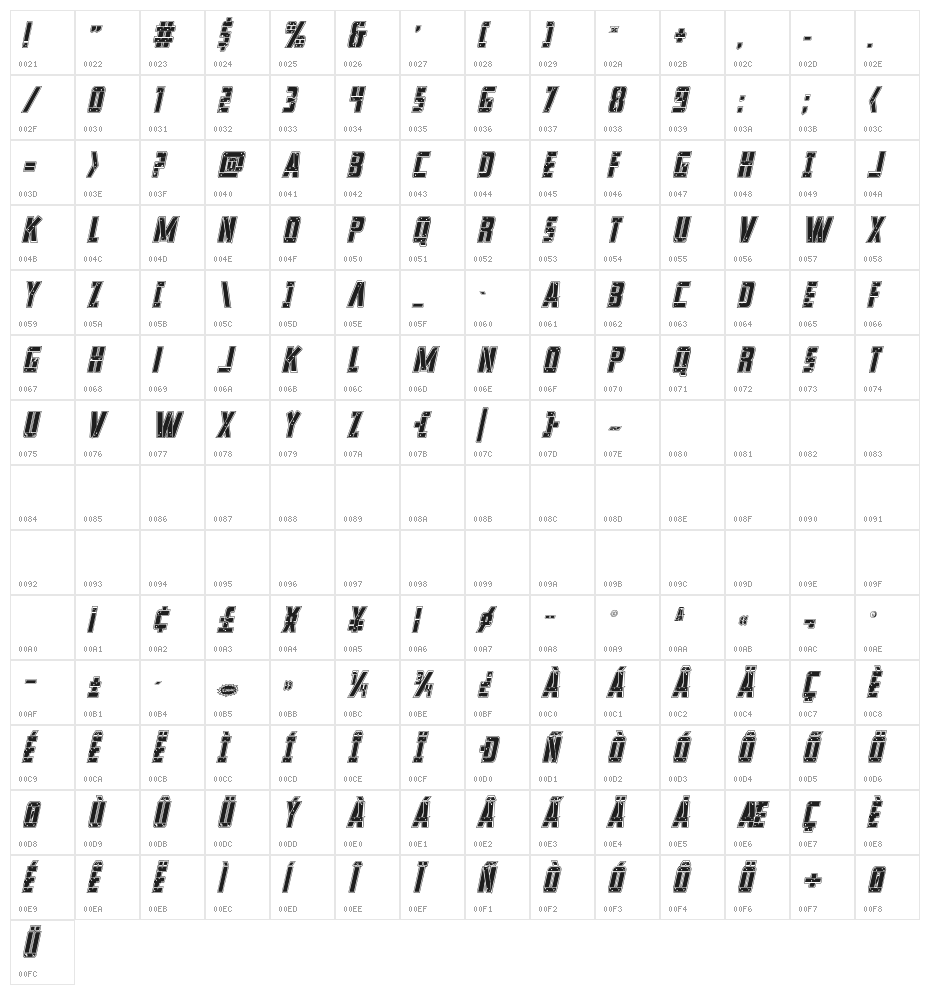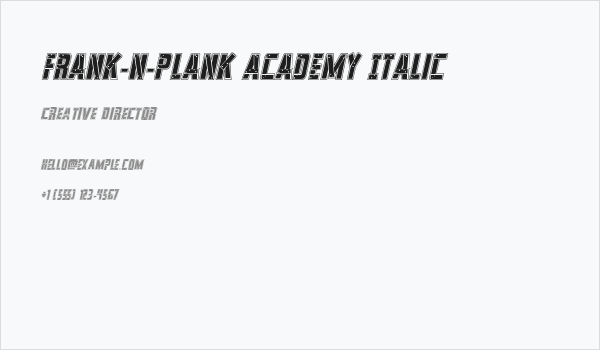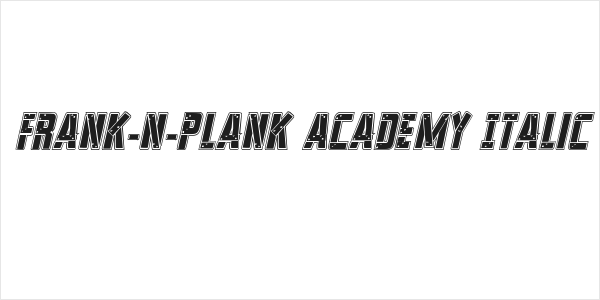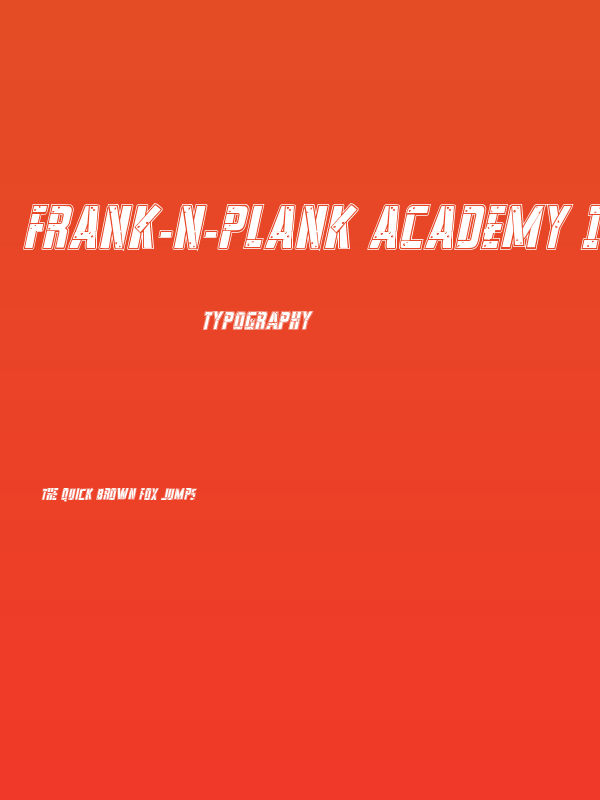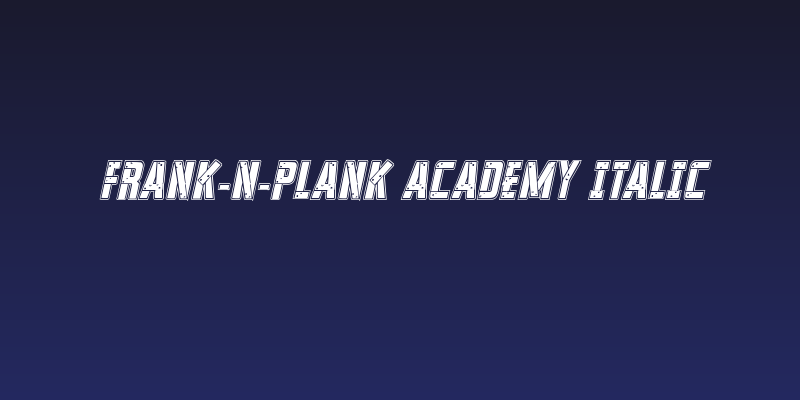
Frank-n-Plank Academy Italic Font
Frank-n-Plank Academy Italic Description
This font features a bold, industrial design with a distinct italic slant, giving it a dynamic and forward-moving appearance. The characters are constructed with a blocky, geometric style, incorporating rivet-like details that add a mechanical, robust feel. The uppercase and lowercase letters maintain a consistent style, with sharp angles and a strong presence. The numbers and special characters follow the same aesthetic, ensuring uniformity across all glyphs. This font's unique design makes it stand out, suitable for projects that require a bold statement.
| Overall Style | Modern, Industrial |
| Proposed Projects | Ideal for branding, posters, signage, and any project requiring a strong, industrial aesthetic. |